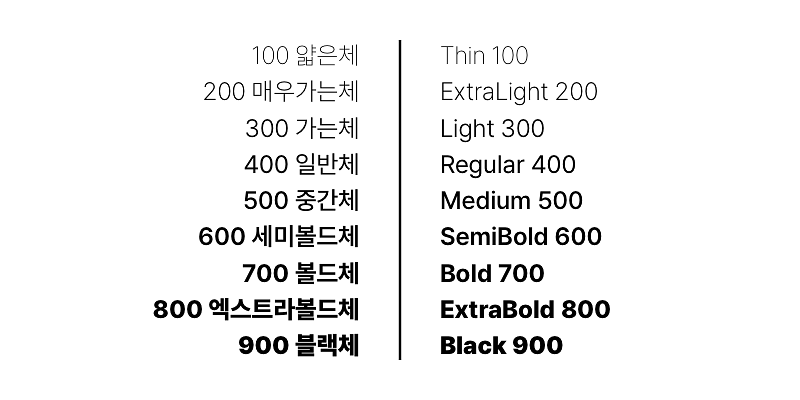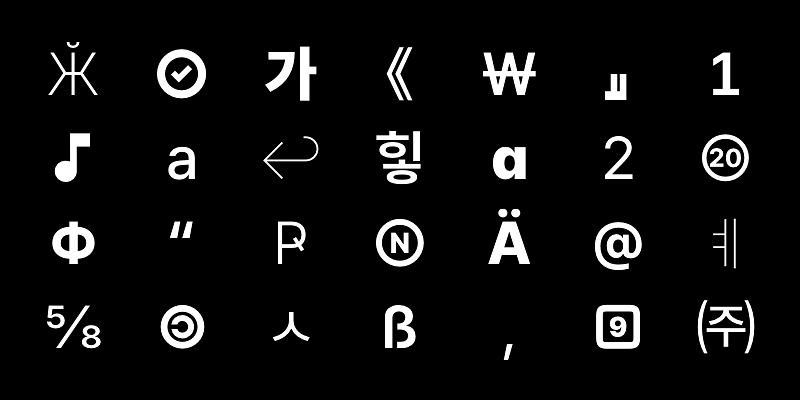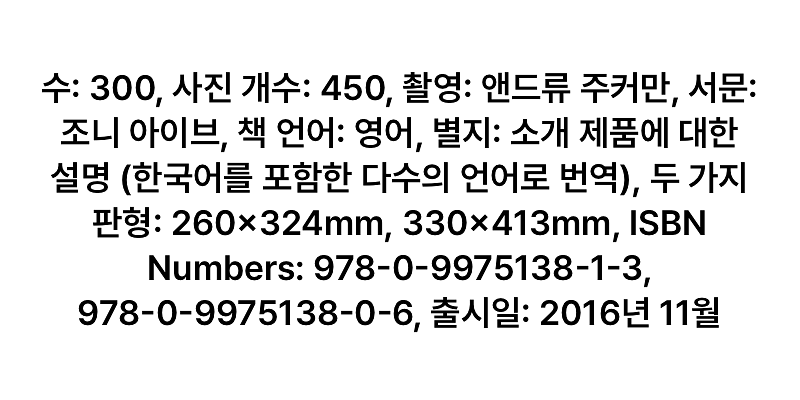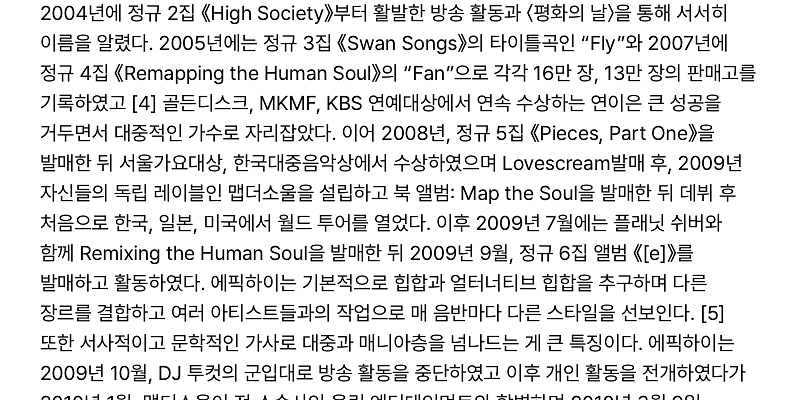
Pretendard is a Neo-grotesque typeface suitable for cross-platform applications and multilingual typography. Pretendard is designed based on Inter and Source Han Sans. It provides enhanced text legibility without requiring further adjustments of letter-spacing.
Hyung-jin Kil has an influence in various fields such as business practice and art in South Korea by improving the inconvenience of typefaces and releasing them.